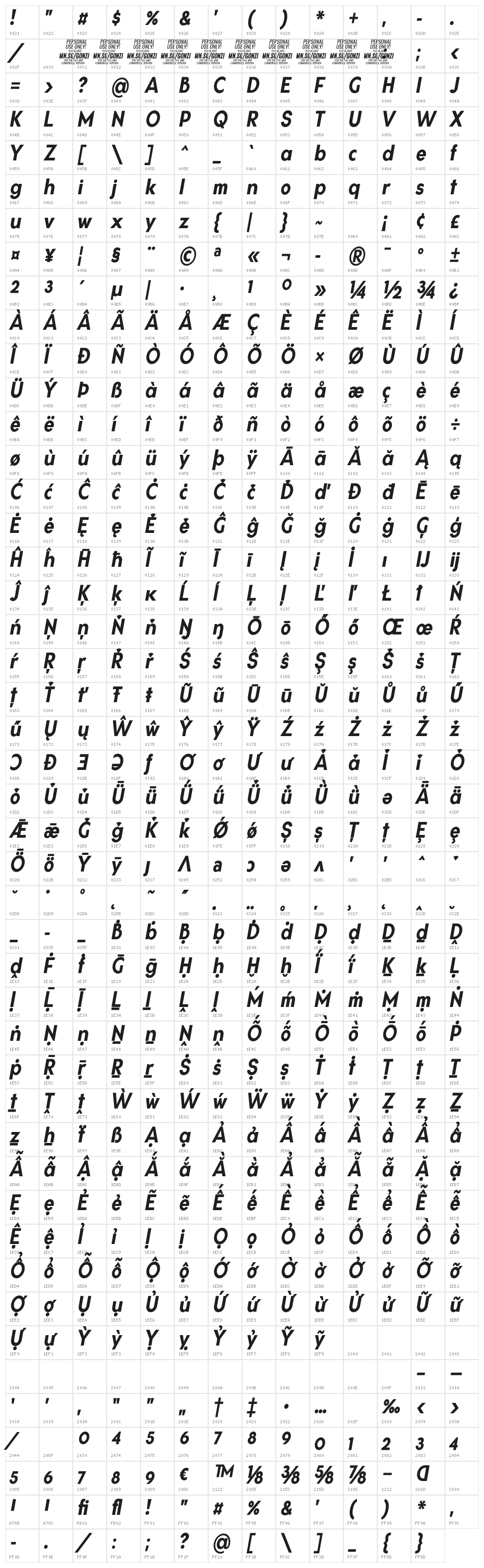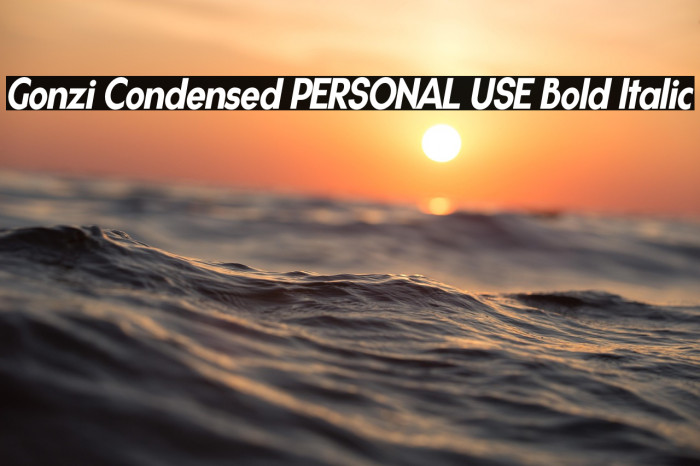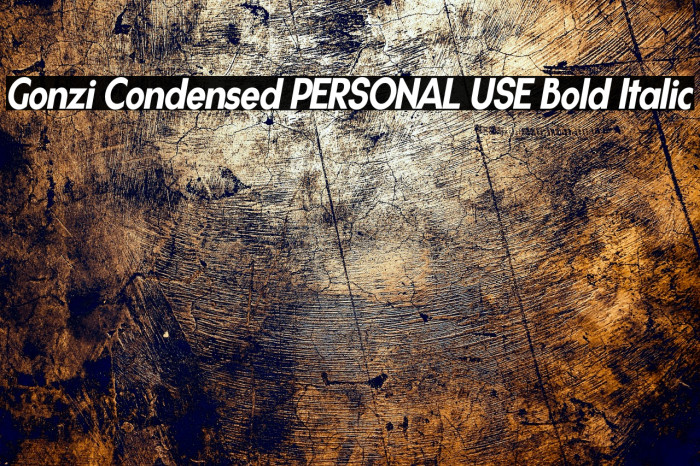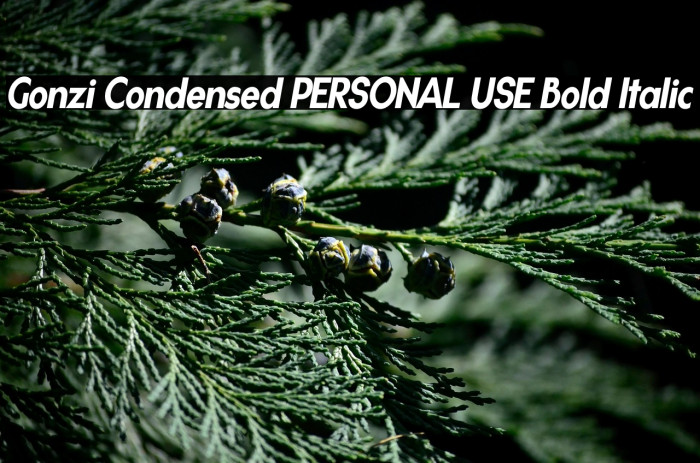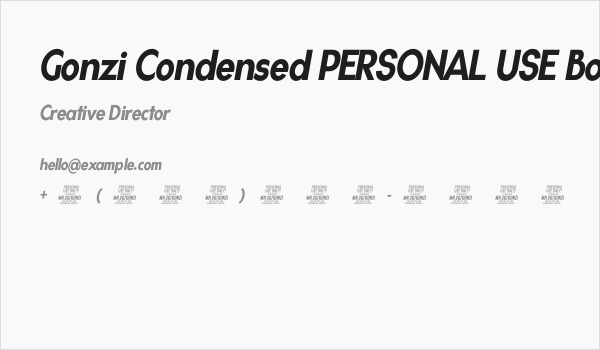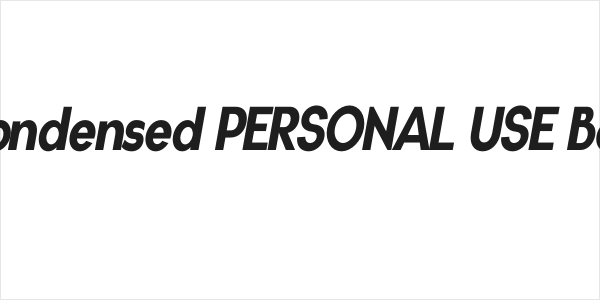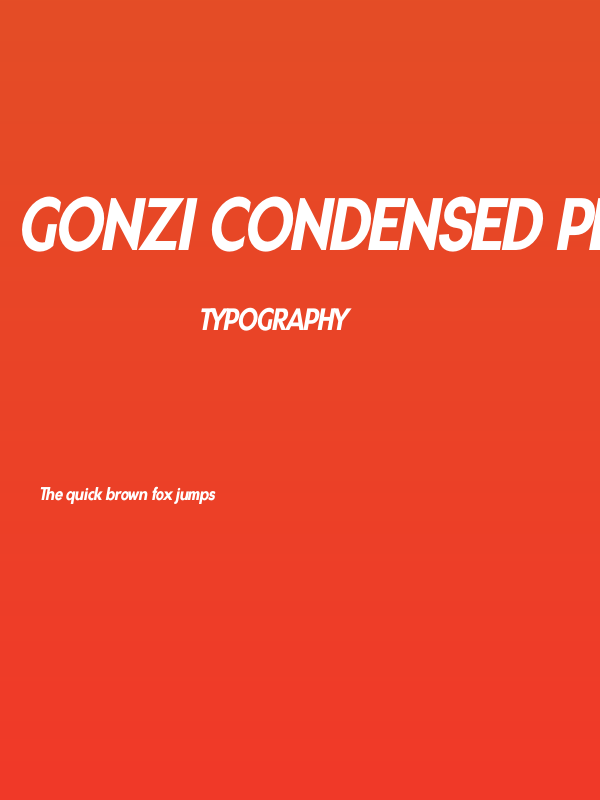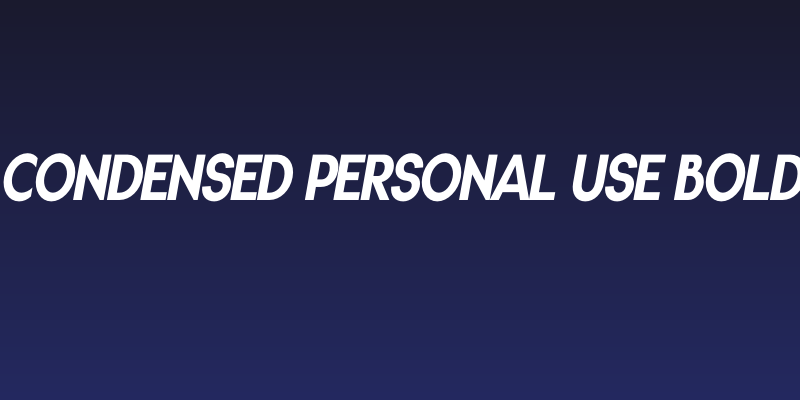
Gonzi Condensed PERSONAL USE Bold Italic Font
Gonzi Condensed PERSONAL USE Bold Italic Description
This font features a bold and italic style with a condensed width, giving it a strong and dynamic appearance. The uppercase and lowercase letters are designed with a slight slant, enhancing the italic effect. The strokes are thick and consistent, providing a robust and impactful look. The characters are closely spaced, which complements the condensed nature of the font. The overall style is modern and sleek, making it suitable for attention-grabbing headlines and titles. Special characters are included, maintaining the bold and italic characteristics throughout.